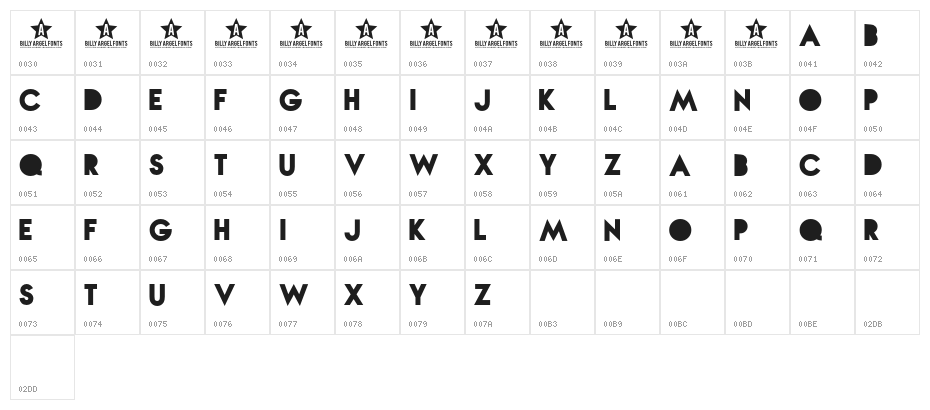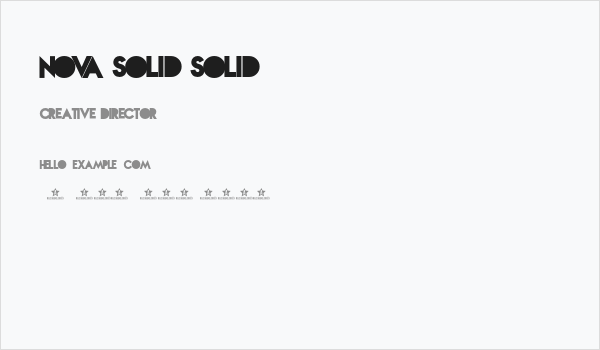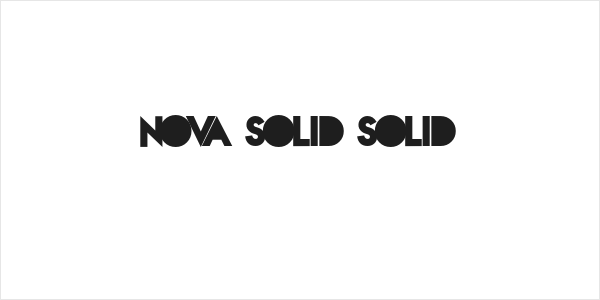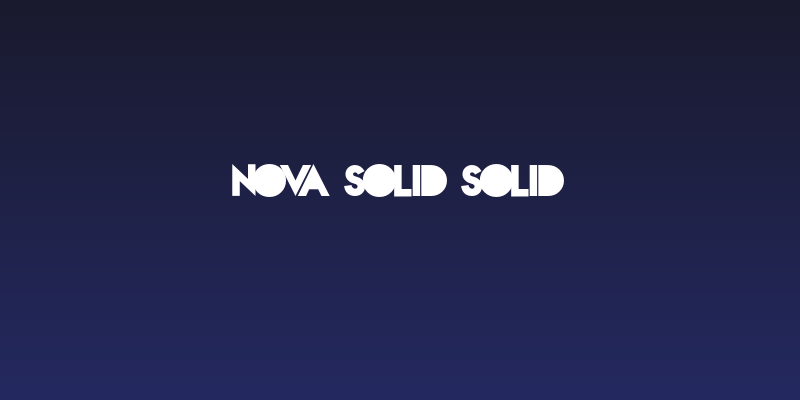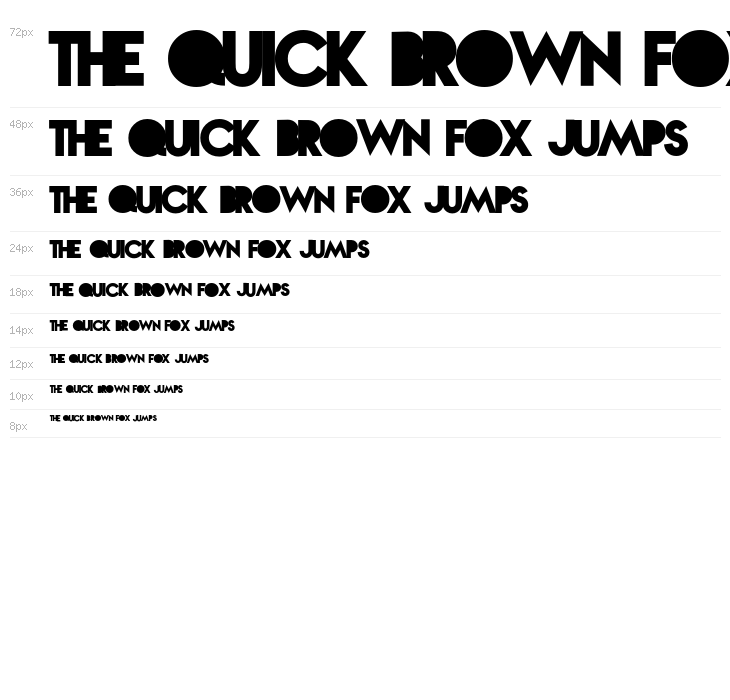
Nova SOLID SOLID Font
Nova SOLID SOLID Description
This font features bold, geometric letterforms with a strong, impactful presence. The characters are constructed with solid, thick strokes that create a sense of stability and strength. The uppercase letters exhibit a uniform height, while the angular design elements add a modern and edgy feel. The font's style is consistent throughout, with no variation in stroke width, giving it a cohesive and powerful appearance. The absence of serifs and the use of straight lines and sharp angles contribute to its contemporary aesthetic. This font is designed to make a statement, ideal for use in projects that require a bold and assertive visual impact.
| Proposed Projects | Ideal for branding, posters, headlines, and any design that requires a strong visual impact. |